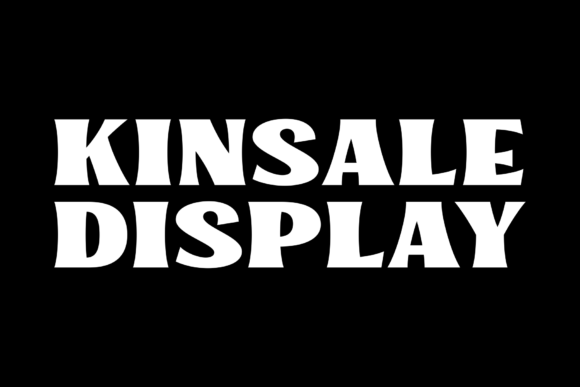
Kinsale Font: Make a Statement with Bold, Sophisticated Typography
In the realm of typography, there's a font that commands attention with its bold presence and sophisticated charm - Kinsale Font. Its chunky, extended characters exude a sense of strength and elegance, making it the perfect choice for those seeking to create logos, branding, packaging designs, and more.
This masterfully crafted display font is more than just a collection of letters; it's a tool to make a statement, to leave a lasting impression, and to elevate your designs to new heights. Its unique design is sure to capture the eyes and ignite the imaginations of your audience.
With Kinsale Font, you can:
- Craft logos that exude confidence and professionalism, making your brand instantly recognizable.
- Create captivating branding that tells a story and leaves a lasting impression.
- Design packaging that stands out on the shelves, attracting customers and driving sales.
- Unleash your creativity in countless other projects, adding a touch of sophistication and style to everything you create.
Kinsale Font is not just another font; it's a powerful tool that transforms ordinary designs into extraordinary creations. Its bold, yet sophisticated design is perfect for adding a touch of elegance and uniqueness to your projects.